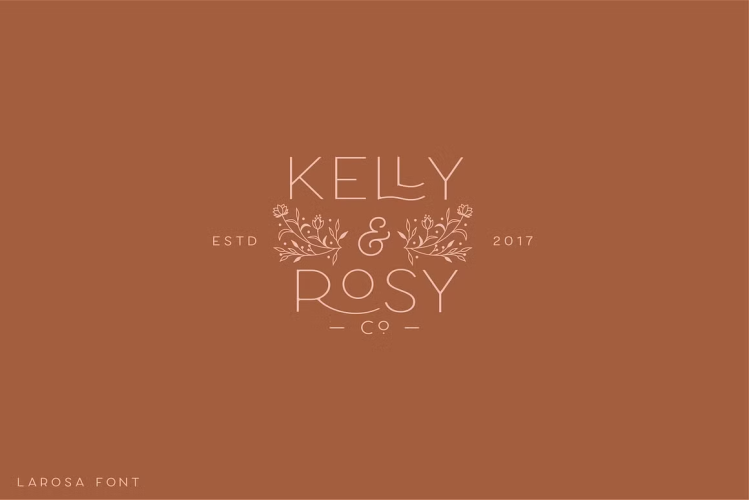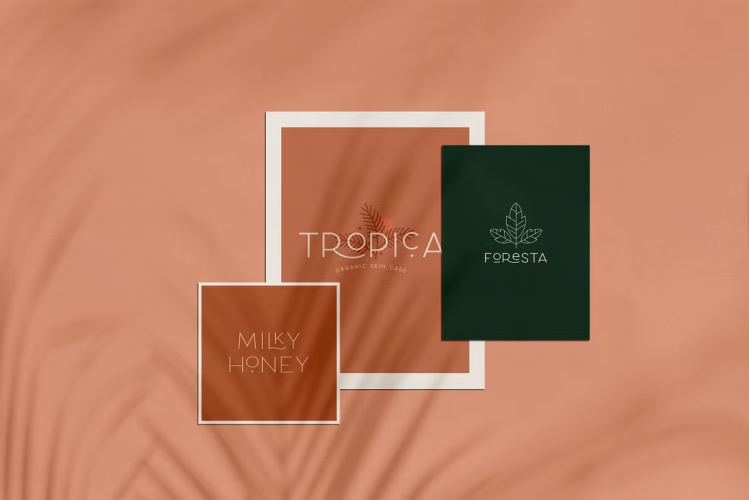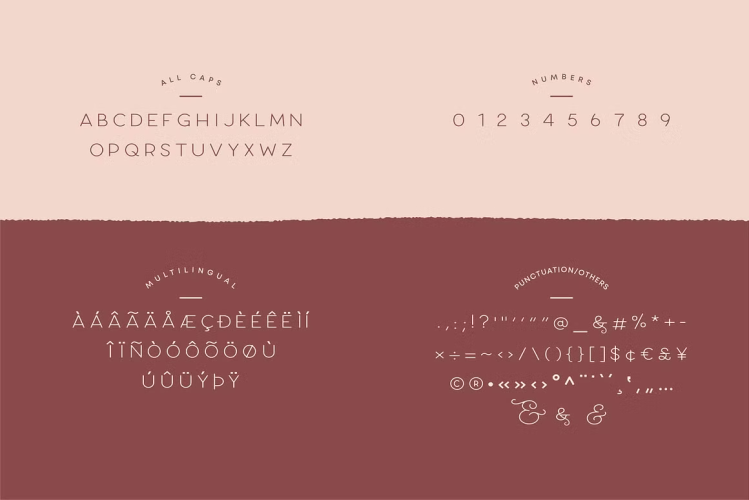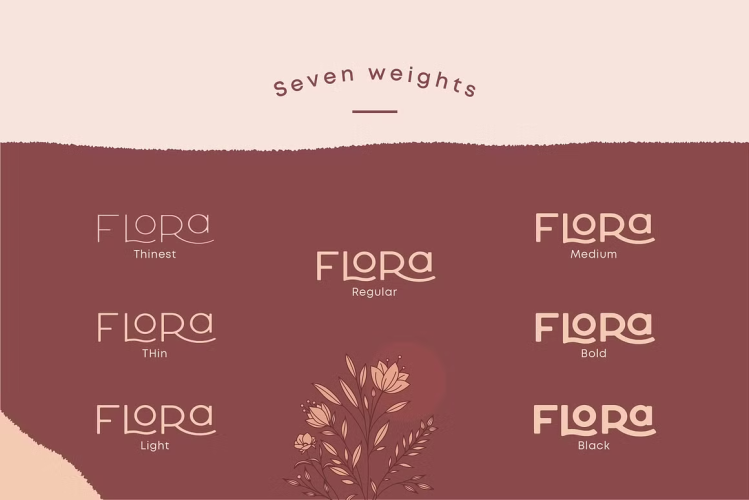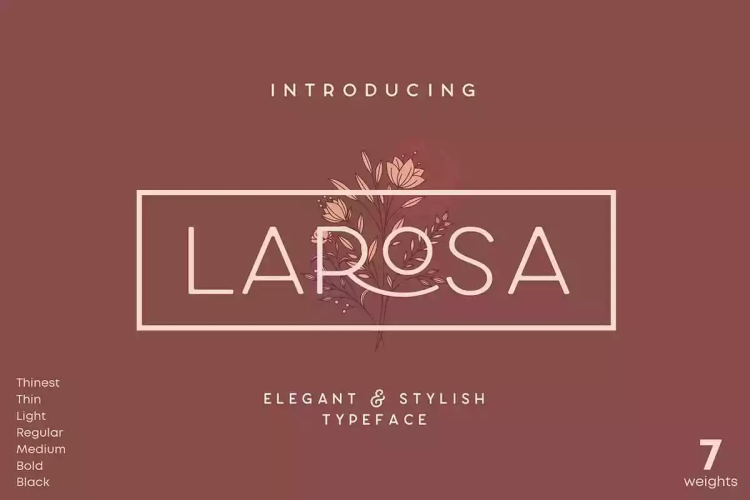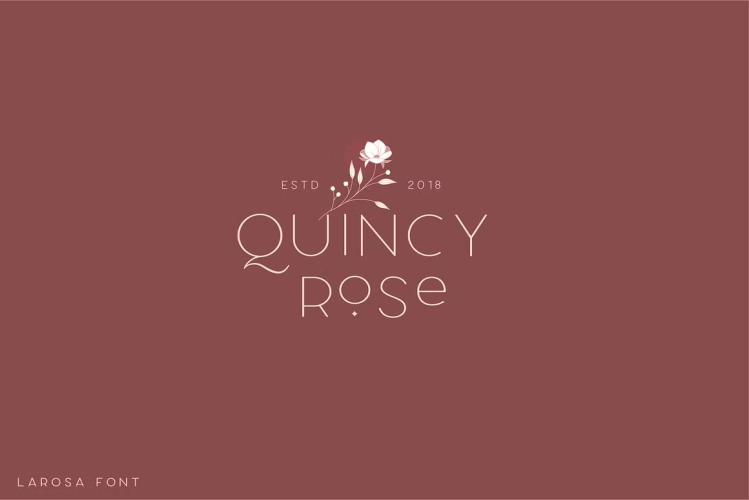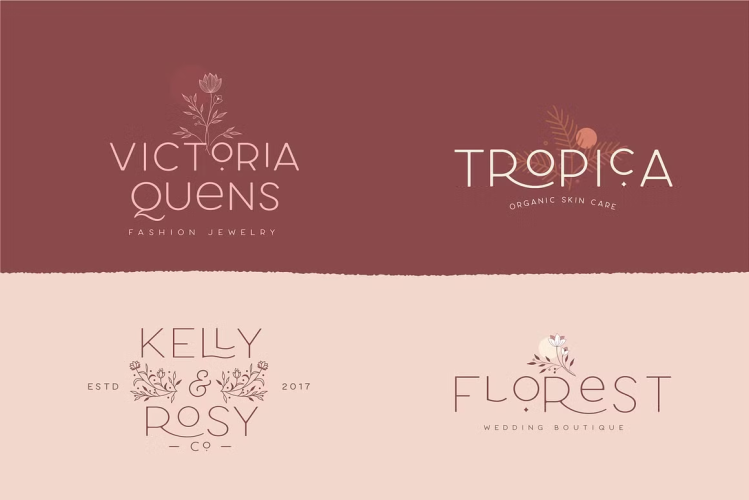
Larosa Font
Introducing Larose Sans—an elegant modern sans serif with many stylistic alternates. Its clean and minimalistic style works wonderfully for logos, headlines, posters, packaging, and more! And with three different weights, your options to create more unique and versatile designs are much broader. Have fun and create more. Your Imagination is only your limit!!
Where Larosa Font works best
Larosa Font stays legible at small sizes, which makes it a strong choice for navigation, buttons and dashboards in web design and app interfaces.
Clean sans serifs like Larosa Font are the default language of SaaS, fintech and product branding.
What is Larosa Font good for?
Larosa Font is a Sans Serif Fonts typeface tagged Branding, Clean, Elegant, Minimalist. It works well for headlines, logos, posters, social media graphics and branding projects that need a distinctive sans serif fonts look.